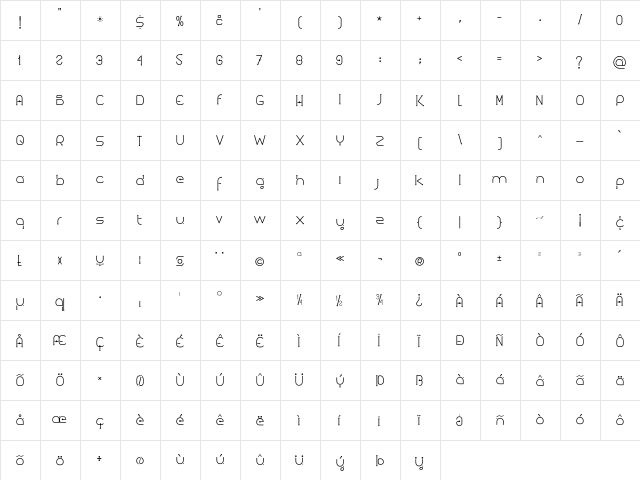
Kuasar Regular
Design Context for Kuasar Typeface
Kuasar is a composed and adaptable typeface that performs quietly and consistently across a wide range of design contexts.